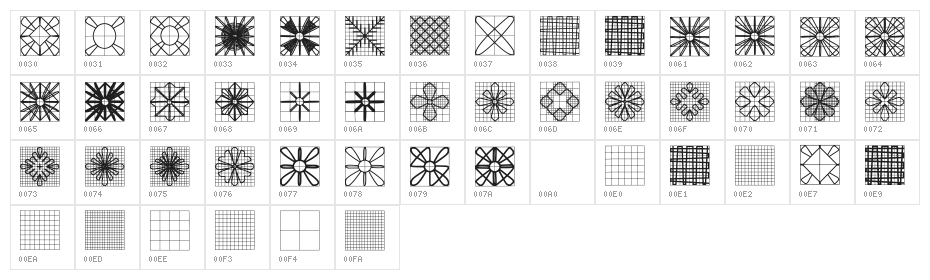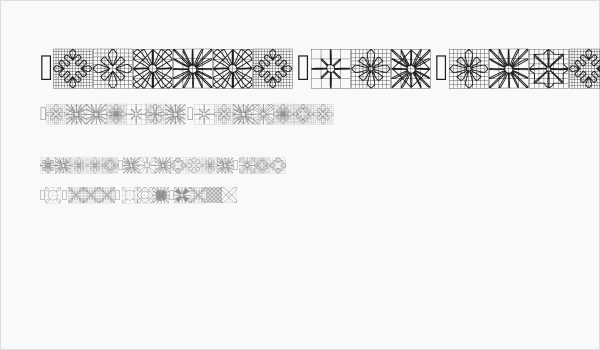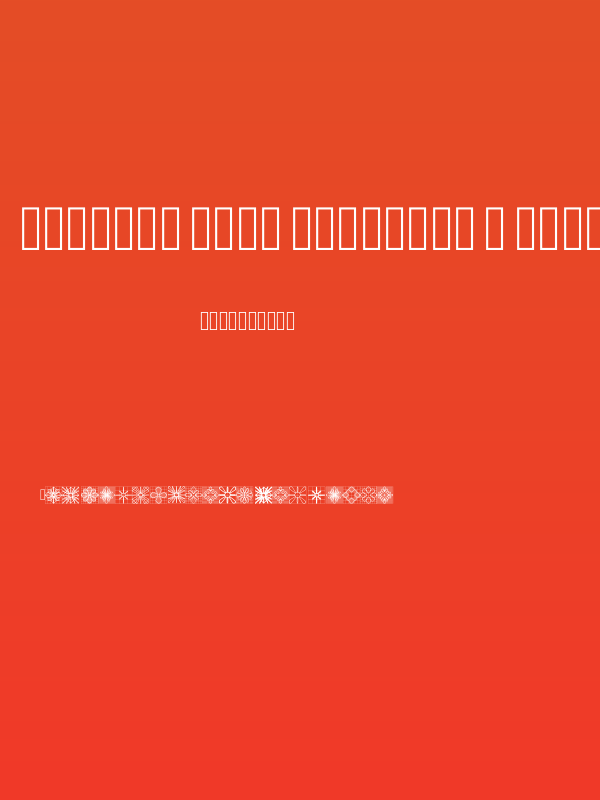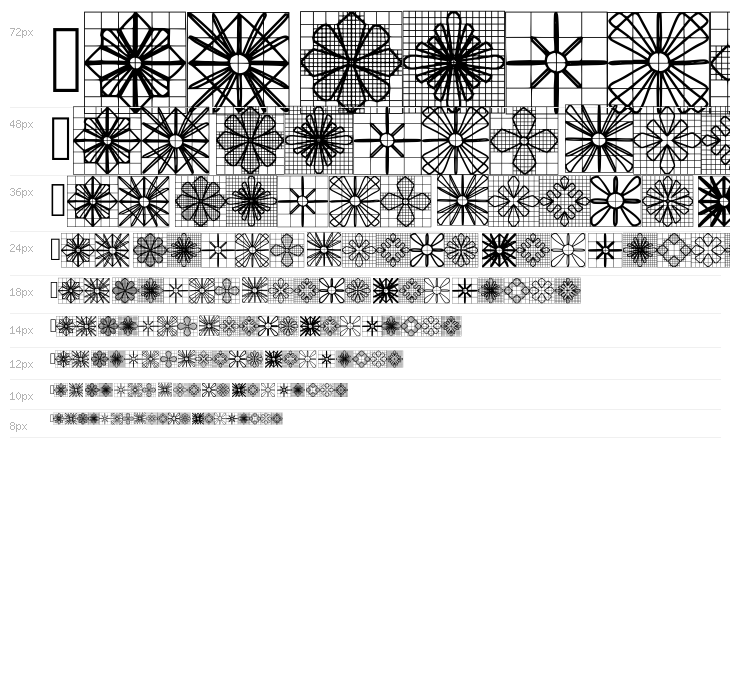
Bordado File Alagoano B Regular Font
Bordado File Alagoano B Regular Description
A decorative display font featuring intricate, embroidery-inspired geometric patterns within each character space, resembling traditional textile or lacework motifs. The glyphs are highly ornamental and do not represent standard alphanumeric forms, focusing instead on unique, detailed designs.
| Overall Style | Decorative, Folk, Artistic |
| Use Case | Logos, Decorative titles, Posters, Art pieces |
| Proposed Projects | Textile branding, craft packaging, decorative headings, cultural event posters, artistic projects. |